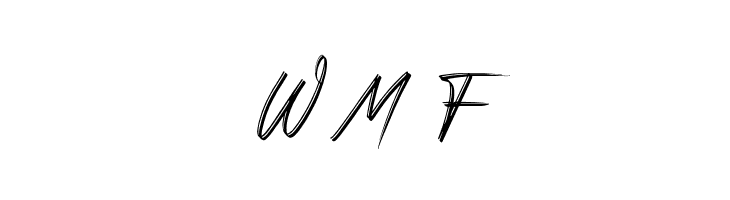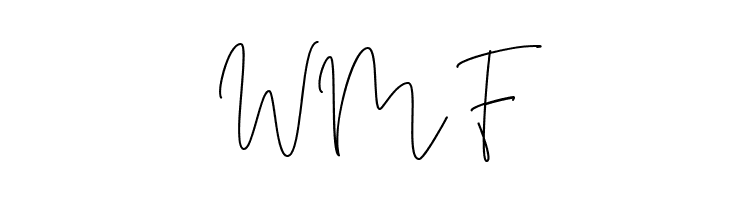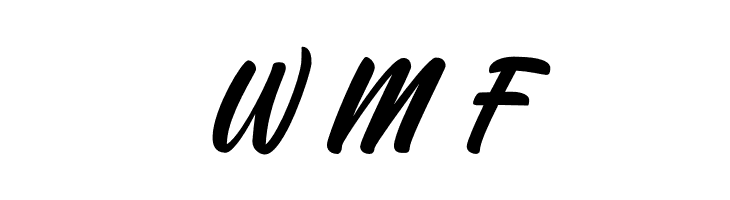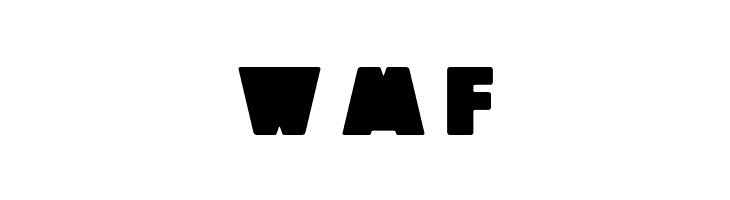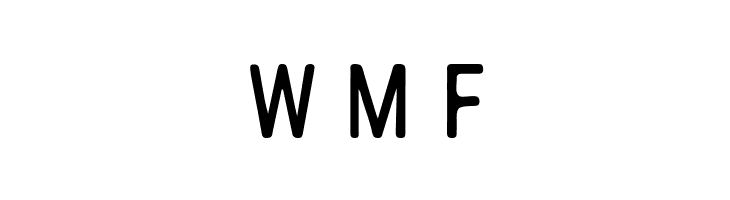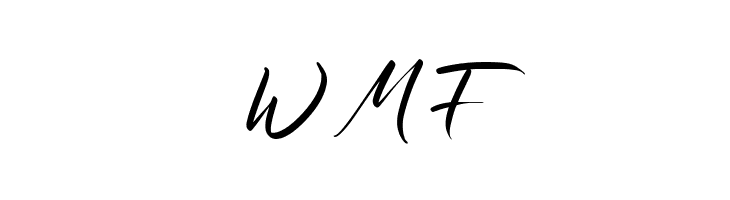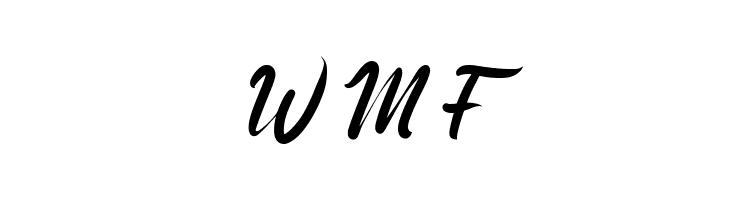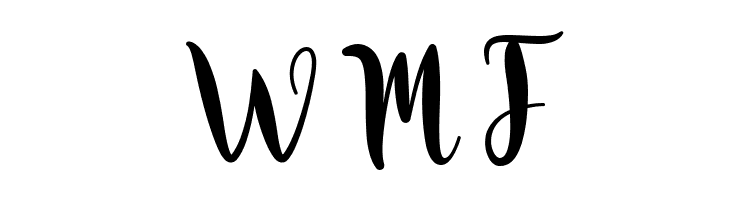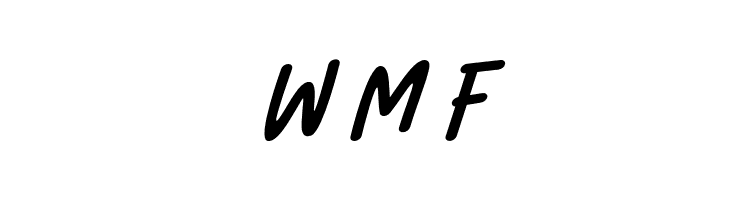
• Rational Integer
A modern, geometric font with uniform line thickness and a minimalistic design.
• rationale
A graceful script font with fluid, connected strokes and a refined appearance.
• Rationale
A modern, geometric sans-serif font with clean lines and uniform stroke width.
• RationaleOne-Regular
A modern, geometric font with tall, narrow characters and consistent stroke width.
• RationaleSignature
• Ratmosh Delliot
A sophisticated cursive font with elegant, flowing strokes.
• Ratna FREE
A flowing, cursive font with elegant loops and swashes.
• RatnaFREE
A cursive, handwritten-style font with elegant, flowing characters.
• Rato
A bold, geometric font with strong lines and modern appeal.
• Ratoela Free
A bold, brush-style font with dynamic, hand-painted strokes.
• Ratoon Land
A playful, rounded font with smooth curves and a friendly appearance.
• Ratouruk
A bold, expressive script font with fluid, interconnected strokes.
• Ratri Volutten
A dynamic and elegant script font with fluid strokes and artistic flair.
• Rats
A whimsical pictogram font featuring diverse rat and mouse illustrations.
• Rats
A playful decorative font made from illustrated rat and mouse silhouettes.
• Rats College
A bold, distressed font with a vintage, collegiate style.
• Rats Get Fat Regular
• RatsFatzBats
A quirky pictogram font with cartoonish, illustrative icons.
• Rattae FREE
A bold, dynamic script font with fluid, connected letterforms.
• RattaeFREE
A bold, dynamic script font with smooth, flowing lines and a handwritten appeal.
• Rattani Demo
A bold, geometric font with sharp angles and dynamic shapes.
• Rattiar Regular